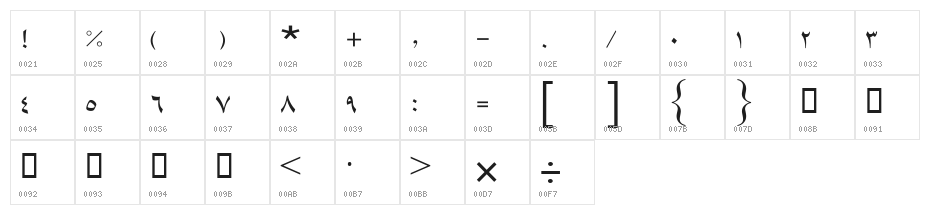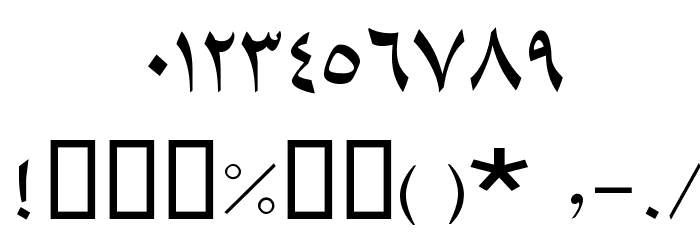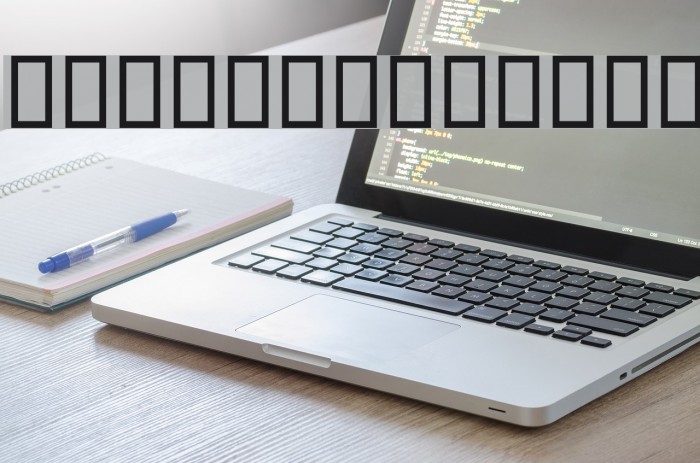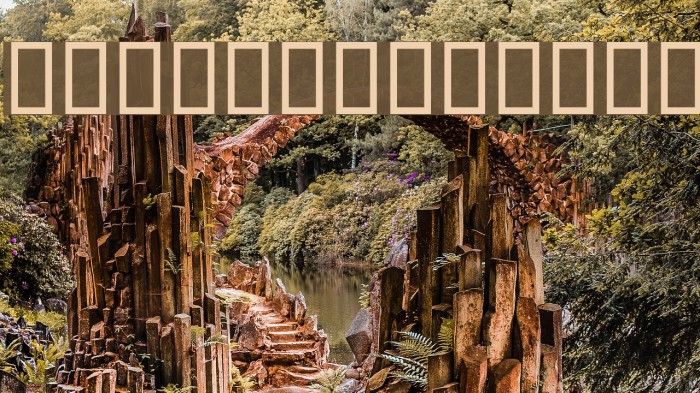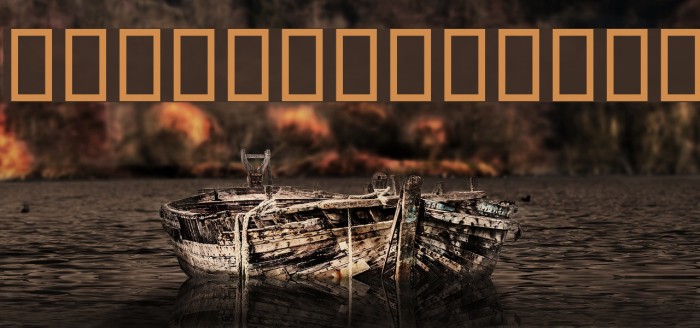
Shafiqh Font
Shafiqh Description
This font features a unique, flowing script style that combines elegance with a touch of modernity. The characters are crafted with smooth curves and subtle flourishes, giving it a sophisticated yet approachable appearance. The numbers are particularly distinctive, with a slight slant and artistic flair that sets them apart. Special characters maintain the same fluidity, ensuring consistency across all elements. This font is ideal for projects that require a personal touch, such as invitations or branding materials, where a sense of elegance and individuality is desired.
| Proposed Projects | Ideal for wedding invitations, personal branding, elegant logos, and artistic projects. |